Graphics design has always been ahead of mainstream PowerPoint in terms of graphical abilities (colors, images, drop shadows, etc.). On the front page of Digg Design today an interesting collection of 3D typography put in one place by Naldz Graphics .
A taste of things to come! Wouldn’t it be interesting to navigate around in a 3D city of buildings made of words to support your presentation?
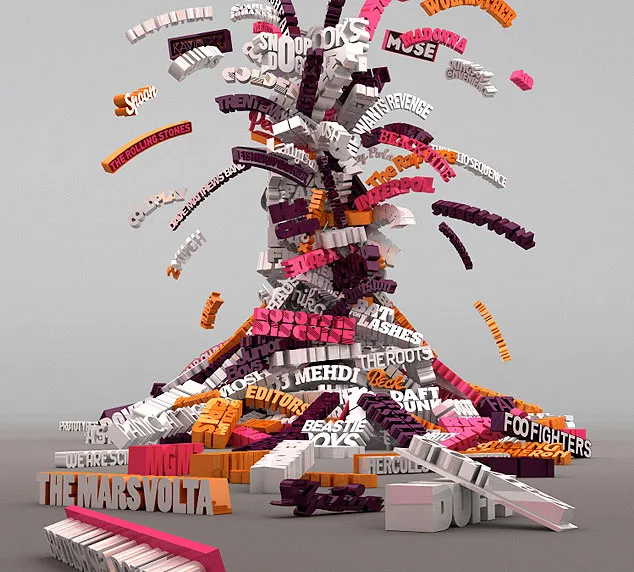
(Image by Serial Cut, advertising for the Zune marketplace)